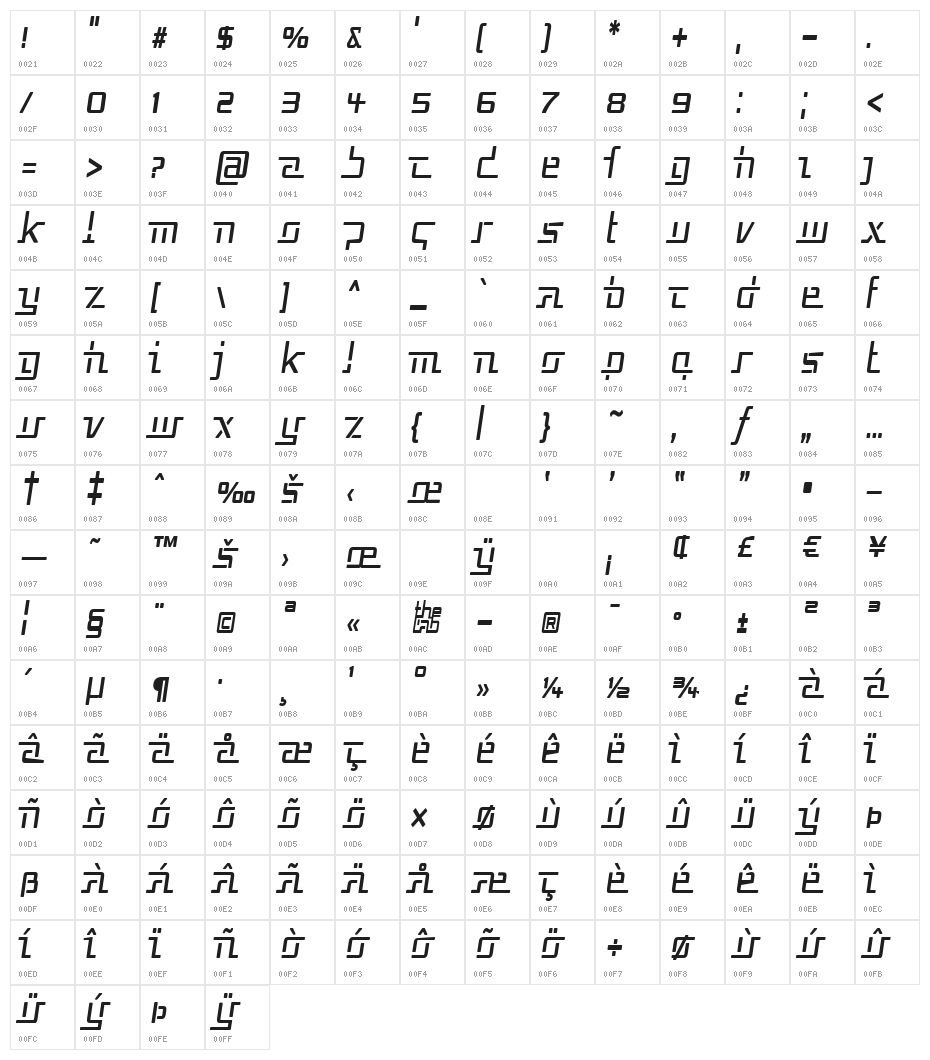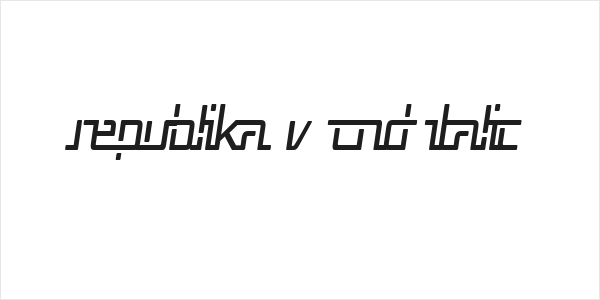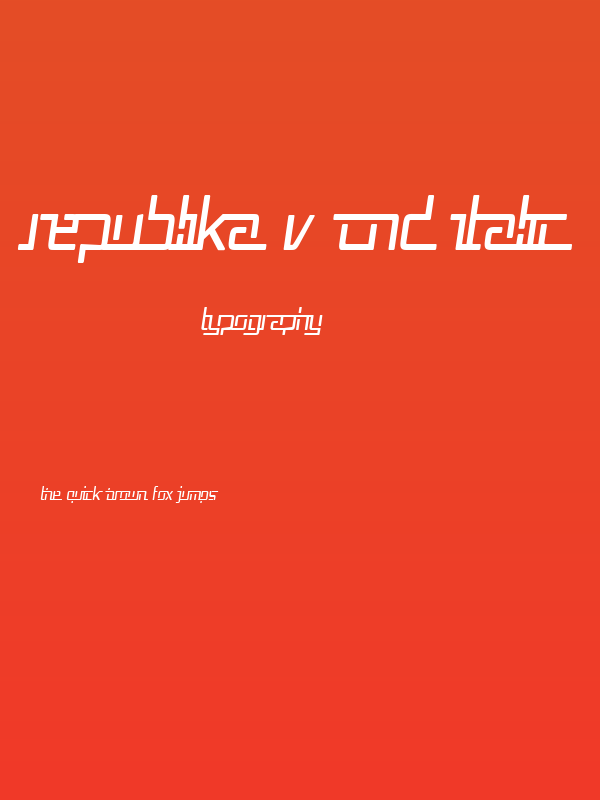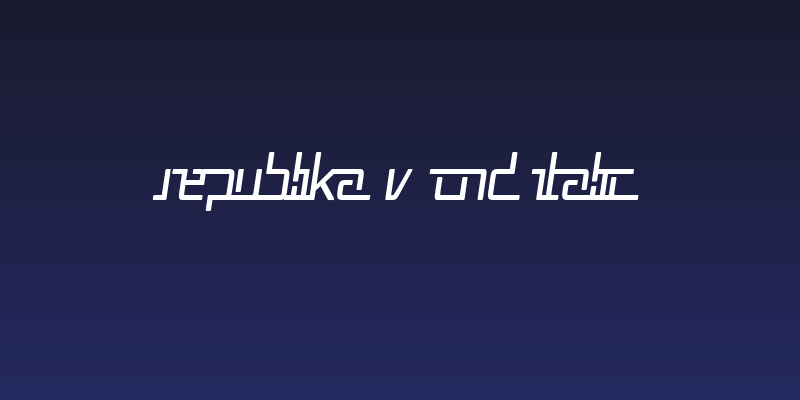
Republika V Cnd Italic Font
Republika V Cnd Italic Description
This font features a modern, geometric design with a condensed and italicized style. The characters are constructed with clean, straight lines and sharp angles, giving it a futuristic and technical appearance. The uppercase and lowercase letters maintain a consistent height, enhancing its uniform look. Numbers and special characters are designed with the same precision, ensuring a cohesive visual experience. The font's structure is sleek and minimalistic, making it suitable for contemporary design projects.
| Use Case | Headlines, Logos, Digital interfaces |
| Proposed Projects | Ideal for tech branding, modern posters, digital interfaces, and futuristic-themed designs. |